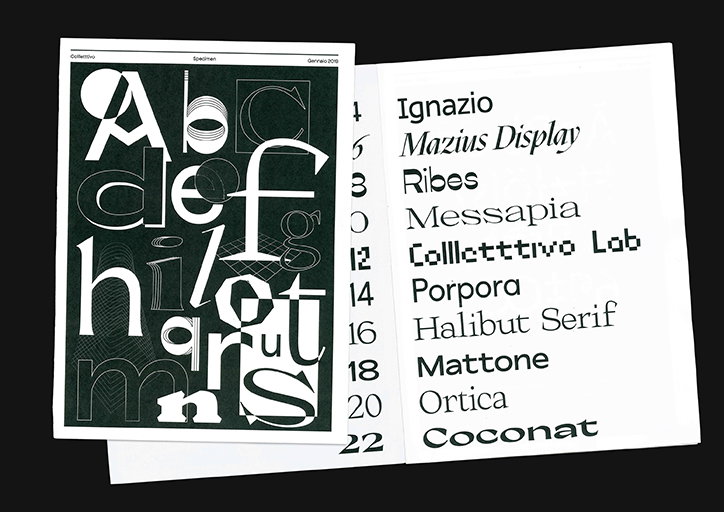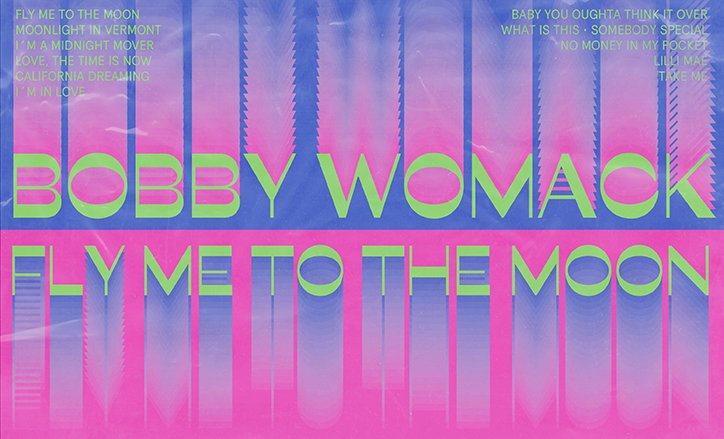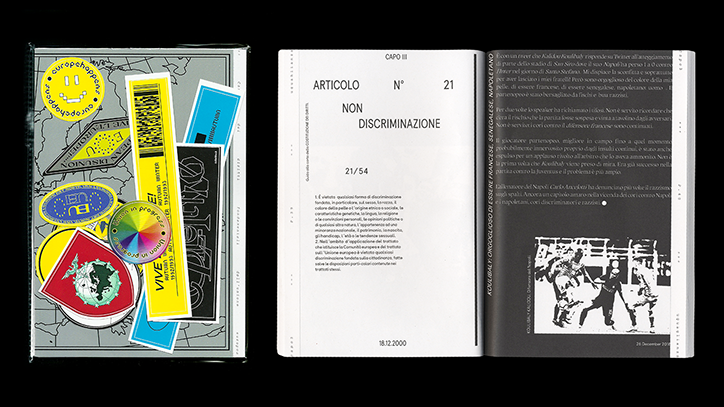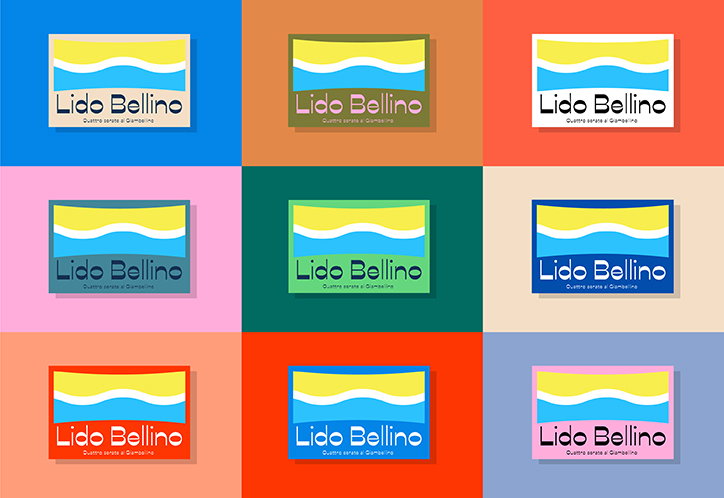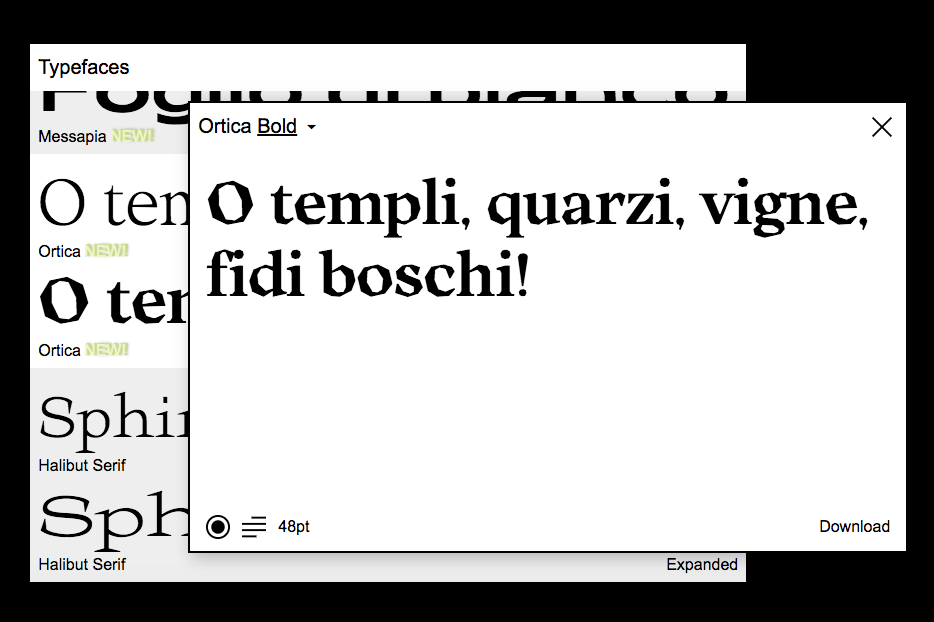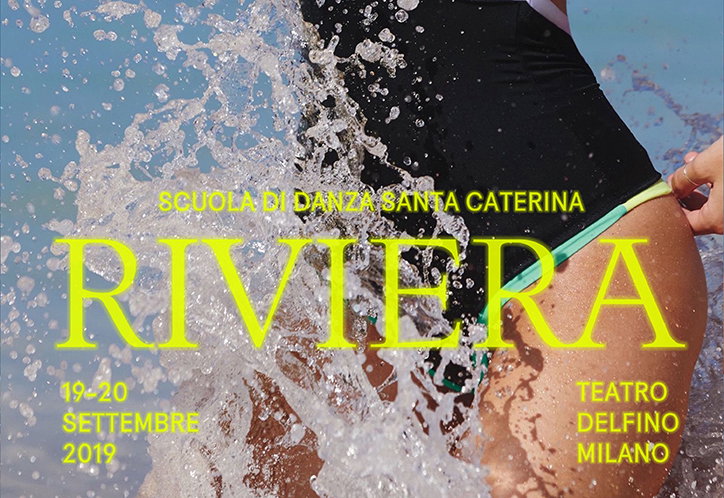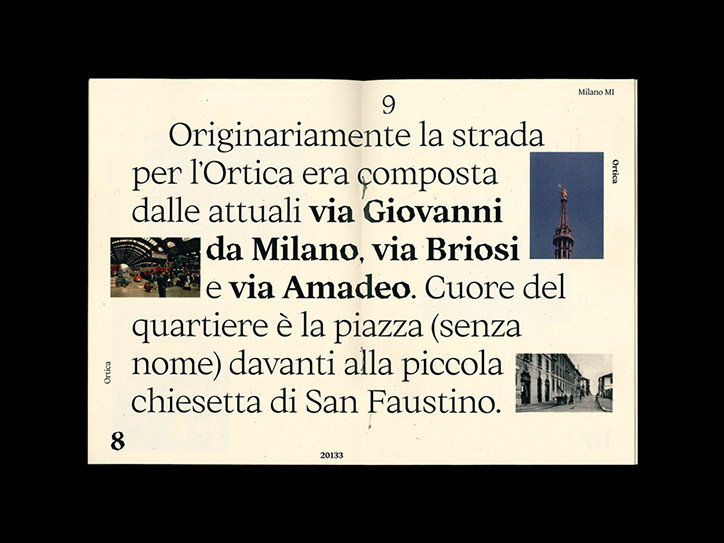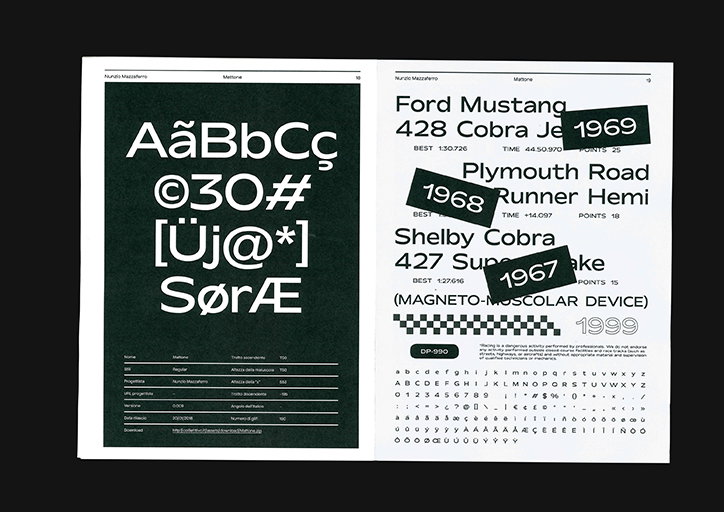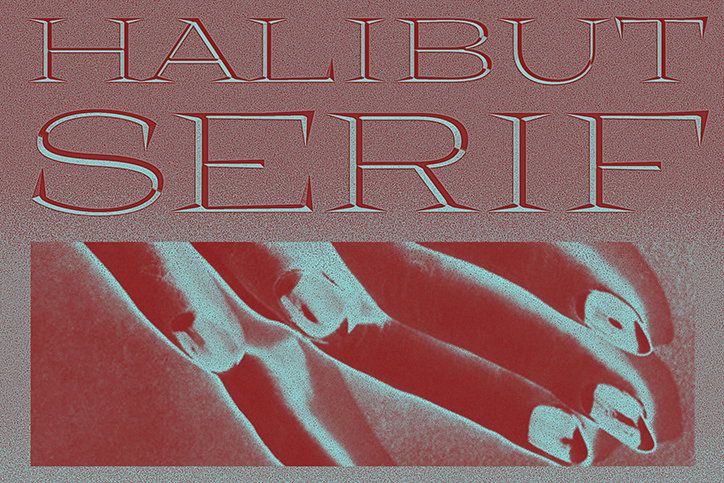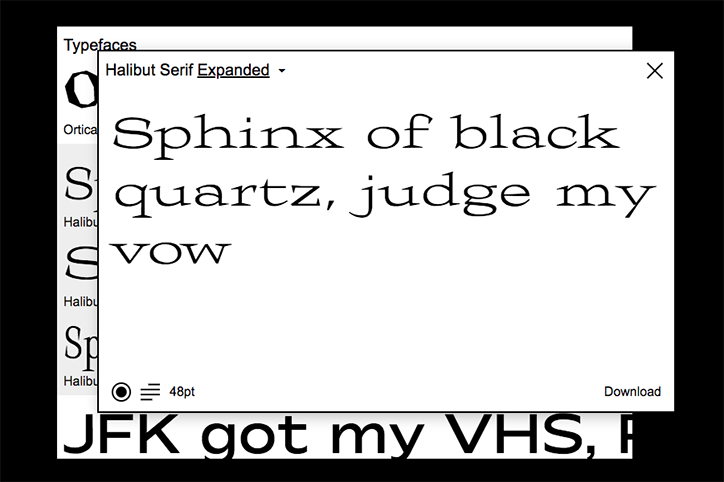
Meet Collletttivo: an expanding group of typography buffs with an open source philosophy
Collletttivo is self-described by its members as “something we haven’t yet been able to define.” A type foundry built on an open source philosophy — where designs can be modified online by others — the collective is “an aggregation of people doing a variety of things that revolve around typography.” Established in 2017, Collletttivo started as an online type portfolio where its early members could share their design experiments. Since then, the group has condensed into a smaller but more active collective of seven Milan-based creatives working on projects, workshops and talks, not to mention several other designers who have released their typefaces on the website which are available to download for free!
Though the group has evolved into something undefinable for now, their goal has always remained the same. Luigi Gorlero of Collletttivo tells It’s Nice That, “our aim is to build an expanding group of typography buffs that can learn and improve through practice and mutual exchange.” Purposely contradicting the often solitary working methods of many type designers, Collletttivo’s open source ethos means its output is more collaborative and more experimental. Additionally the openness helps “broaden [their] audience and provides a platform to give and receive advice from other members of the design community.
Their name encapsulates this ideology, deriving from the Italian word for collective “collettivo” while the extra “l” and “t” stands for the Italian term for open typography, “libera tipografia”. Always open to new collaborations, Collletttivo does not identify as a design studio as it largely operates after work or on weekends, but nonetheless, its design output matches the technical abilities and creativity of full-time studios.
Collletttivo: Luigi Gorlero, Ribes Black
Ribes Black, designed by Luigi Gorlero is a typeface consisting of two families, Ribes Black and Ribes Torto, normal and cursive respectively. While Ribes Black takes its inspiration from the 1950’s funk and jazz aesthetic, it “retains a glimpse of Roman proportions” creating a playful yet solid design. Alternatively, Ribes Torto is still a work in progress but similarly follows the humanist typography movement like its sister, possessing a “twisted and unstable appearance” as a result of skewed stems.
Ortica is designed by Benedetta Bovani. Its concept revolves around a family of typefaces with three pointedly different curvature intensities. From straight and sharp edges in Ortica Bold to the “perfectly built curves” of Ortica Light, each weight looks very different on first glance but is “constructed with the same soul.” The regular version is currently under construction and will appear somewhere between its light and bold counterparts, meeting in the middle between Ortica Light’s simple elegance and Ortica Bold’s chunky dynamism.
Finally, Matteo Maggi talks us through his typeface Halibut Serif. “At the beginning my goal was very trivial” explains the designer. “I wanted to make a Roman typeface inspired by the classics but with a shade of the contemporary.” Interested in the Roman practice of glyph engraving into marble books, Matteo went onto take on the limitations of these primitive chisel tools and “use them as an aesthetic peculiarity.”
Taking inspiration from Aldo Novarese’s Nova Augustea from 1964, and a classic sign for a pharmacy in Brera, Milan, Matteo went onto design the extended version of Halibut. “The result was something very spiky and cold” and so he named his creation Halibut as a reference to fishing hooks and shiny sharp fish. “I found out later that actually, Halibut is neither sharp nor silver, but more like a huge floppy flounder, but by then I had grown fond of the name” concludes the designer on his quirky typeface.
Collletttivo: Luigi Gorlero, Ribes Black
Collletttivo: Benedetta Bovani, Ortica Bold
Collletttivo: Benedetta Bovani, Ortica Light
Collletttivo
Collletttivo: Matteo Maggi, Halibut Serif